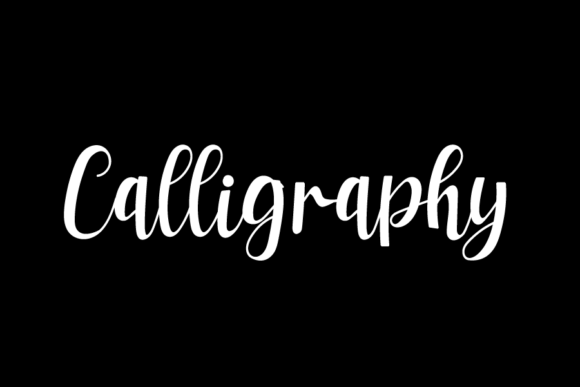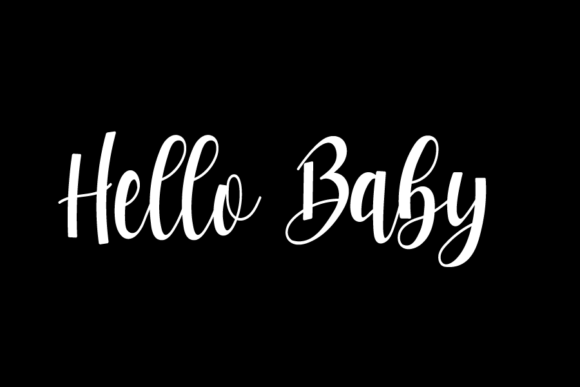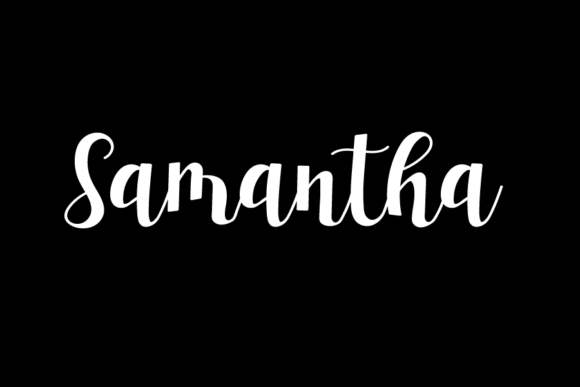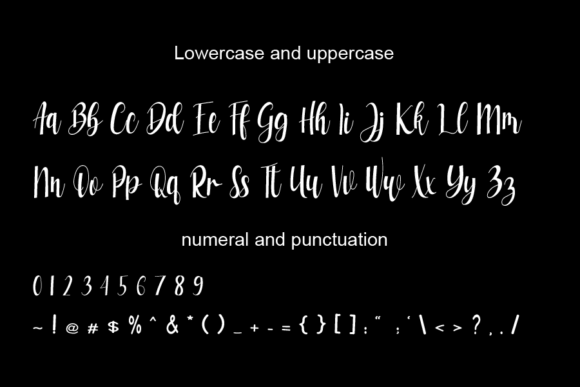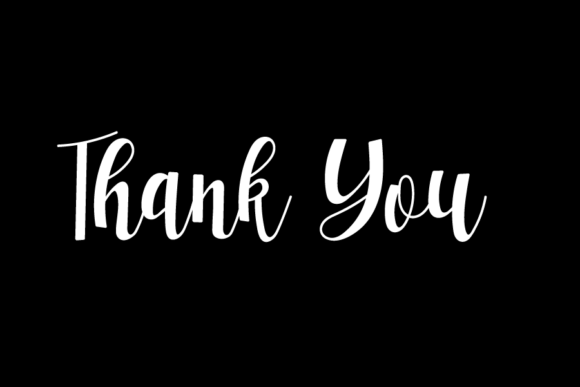
Introducing Endorse Font: Elevate Your Designs with Elegance
Are you on the hunt for a font that exudes elegance and sophistication? Look no further than Endorse Font, a stunning handwritten font that is sure to capture your heart. With its flowing lines and timeless style, Endorse is the perfect addition to any design project. In this article, we’ll dive into the world of Endorse Font, exploring its unique features, and how you can use it to create spectacular designs that leave a lasting impression.
The Story Behind Endorse Font
Endorse Font is a carefully crafted handwritten font, designed to bring a touch of elegance to your favorite projects. Its creator aimed to develop a font that not only stands out but also conveys a sense of sophistication and refinement. The result is a font that is both distinct and timeless, making it perfect for designers and crafters looking to add a unique flair to their work.
Key Features of Endorse Font
- Flowing Handwritten Style: Endorse Font boasts a beautiful, flowing handwritten style that adds a touch of warmth and personality to any design.
- Elegant Touch: The font’s elegant touch makes it perfect for projects that require a level of sophistication, such as luxury branding, high-end packaging, and refined editorial content.
- Distinct and Timeless Style: Endorse Font’s unique style sets it apart from other fonts, making it a great choice for designers looking to create memorable and impactful designs.
- Versatility: This font is incredibly versatile, suitable for a wide range of projects, from digital designs to print materials.
Use Cases for Endorse Font
Endorse Font is an incredibly versatile font that can be used in a variety of design projects, including:
- Branding and Logo Design: Create a lasting impression with Endorse Font, perfect for luxury brands, high-end services, and premium products.
- Editorial Design: Add a touch of elegance to your editorial content, such as magazines, newspapers, and blogs.
- Packaging Design: Elevate your packaging designs with Endorse Font, ideal for high-end products, cosmetics, and gourmet foods.
- Digital Design: Use Endorse Font in your digital designs, such as website headers, social media graphics, and email marketing campaigns.
Tips for Using Endorse Font
To get the most out of Endorse Font, here are some tips to keep in mind:
- Pair with Neutral Colors: Endorse Font looks stunning when paired with neutral colors, such as black, white, and gray.
- Experiment with Font Sizes: Play around with different font sizes to create visual hierarchy and add emphasis to your designs.
- Mix with Other Fonts: Combine Endorse Font with other fonts to create a unique and interesting typography.
In conclusion, Endorse Font is a beautiful handwritten font that is sure to elevate your designs with its elegant touch and timeless style. With its versatility, flowing lines, and distinct character, Endorse Font is perfect for designers and crafters looking to add a touch of sophistication to their projects. Whether you’re working on branding, editorial, packaging, or digital designs, Endorse Font is an excellent choice. So, fall in love with Endorse Font and use it to create spectacular designs that leave a lasting impression!